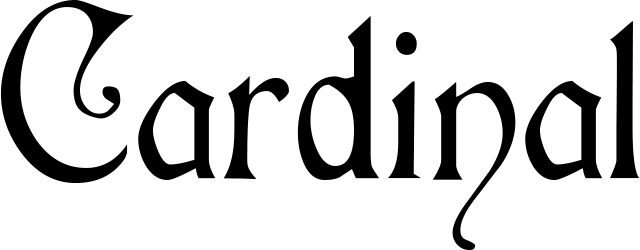
Cardinal Font
Looking for a Gothic medieval font, that looks stunning?! You are at the proper spot as Cardinal is what will help you to accomplish the design you are picturing. It’s functional in 2 styles plus the bold characters have…
Looking for a Gothic medieval font, that looks stunning?! You are at the proper spot as Cardinal is what will help you to accomplish the design you are picturing. It’s functional in 2 styles plus the bold characters have pointy edges and they give a middle-age feel.
The pleasing news is that it contains mixed case alphabets, numbers, and punctuations and you can create your typography skillfully. A few established places where Cardinal looks attractive are banners, logos, books, posters, and more.